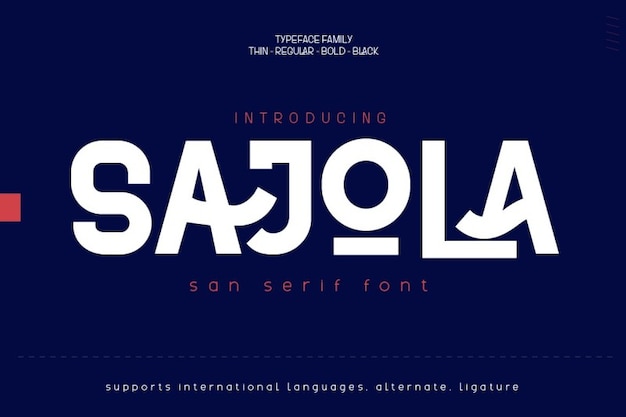
Sajola Font
Sajola is one of the most harmonious fonts around. Its ligatures with lovely curves make reading a pleasing experience. This all-in-one font even supports multilingual accents. If you want to create flawless and extraordinary projects, you need this font. Download it now!